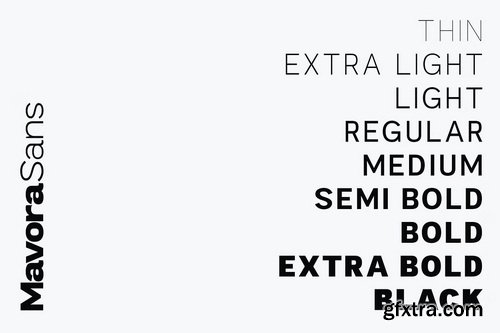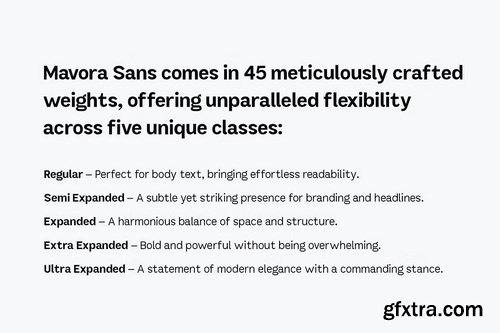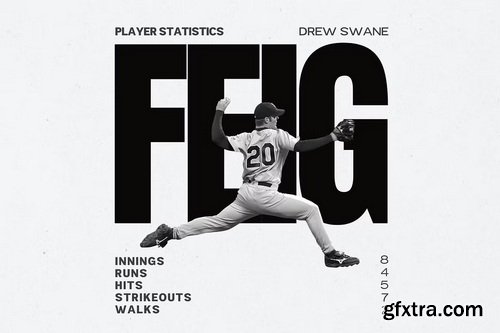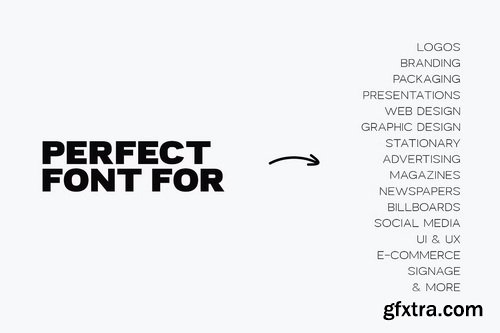
Introducing Mavora Sans, the pinnacle of typographic excellence. A clean, modern, and minimal sans-serif designed to stand the test of time. Whether you're crafting a high-end brand identity, designing an elegant website, or shaping the future of editorial design, Mavora Sans is the only typeface you’ll ever need.
Mavora Sans comes in 45 meticulously crafted weights, offering unparalleled flexibility across five unique classes: